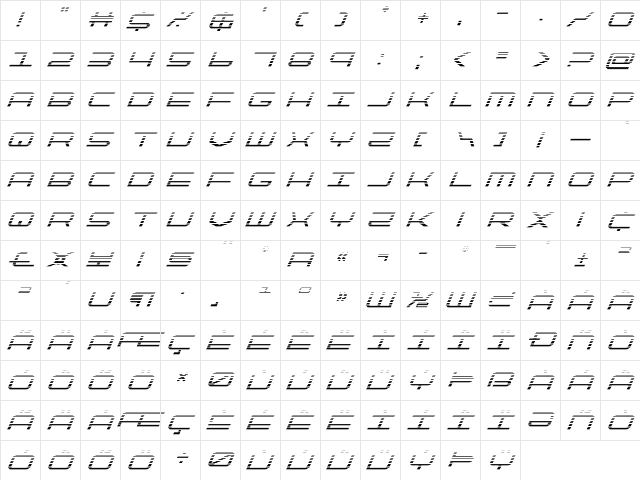
QuickTech Gradient Italic Italic
Design Context for QuickTech Gradient Italic Typeface
QuickTech Gradient Italic has a distinctly futuristic character, with geometric precision and clean angles that feel at home in technology, gaming, and sci-fi contexts. Its italic angle brings a sense of urgency and motion to the letterforms.